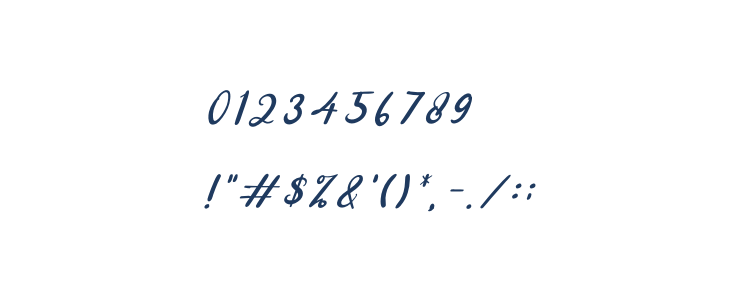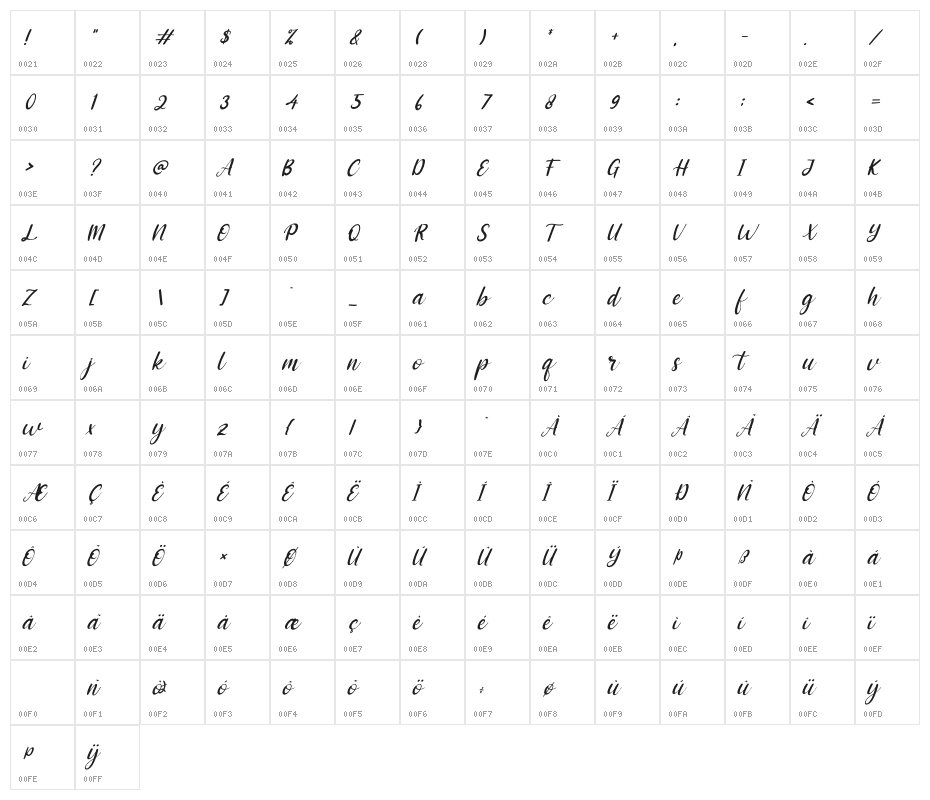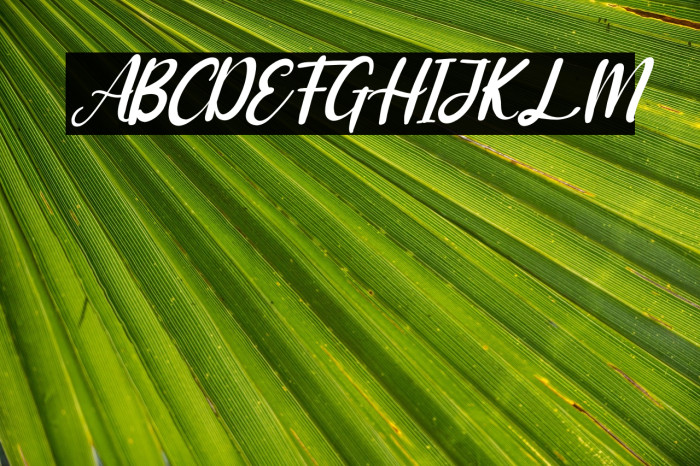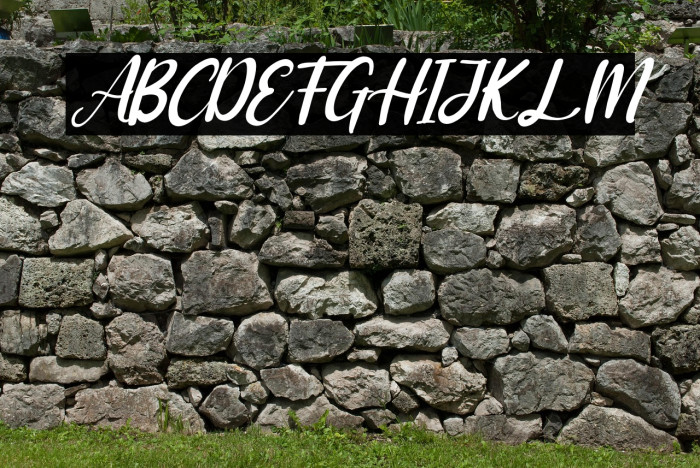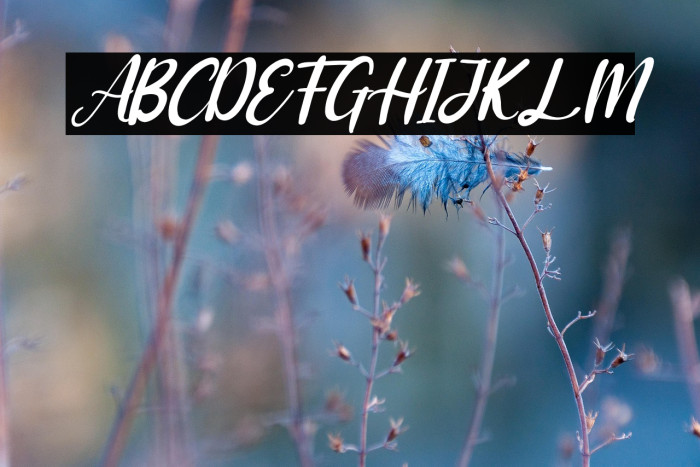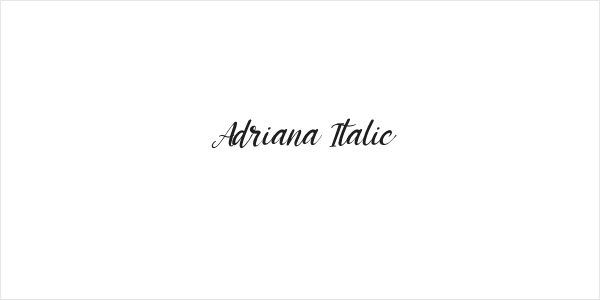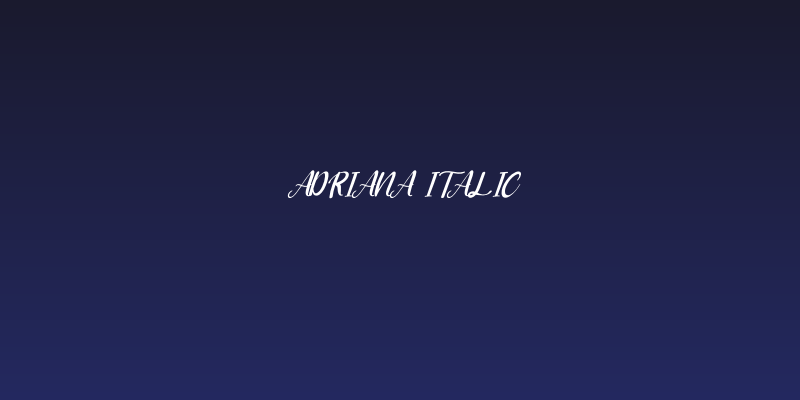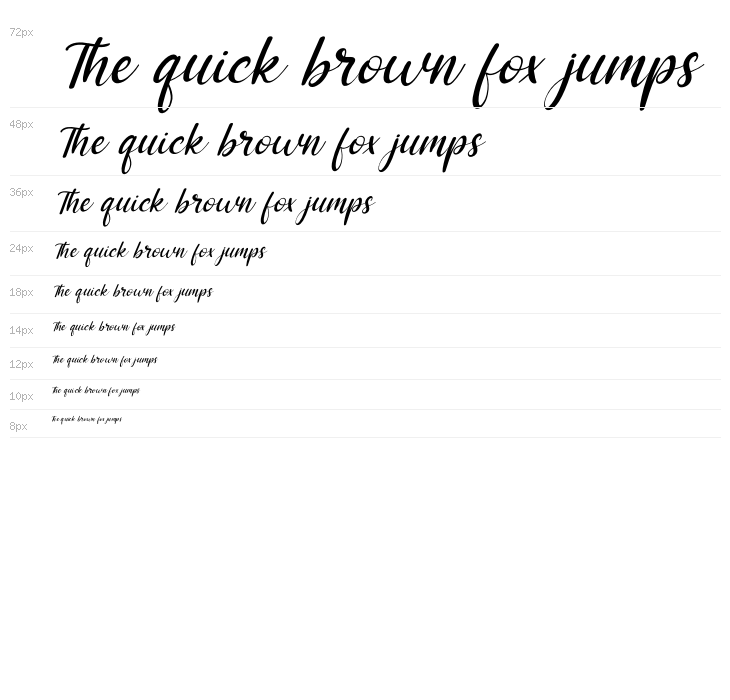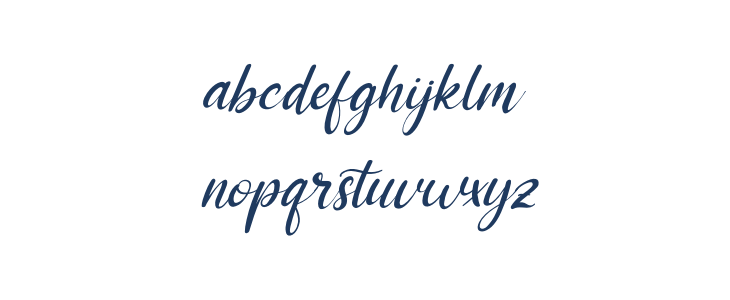
Adriana Italic Font
Adriana Italic Description
This font exudes elegance and fluidity, characterized by its cursive, handwritten style. The letters are connected in a smooth, flowing manner, with a slight slant that enhances its italic nature. Each character is crafted with a consistent stroke width, providing a harmonious and balanced appearance. The uppercase letters are bold and prominent, while the lowercase letters maintain a graceful continuity. The numerals and special characters are designed to complement the overall aesthetic, making it suitable for creative and decorative purposes.